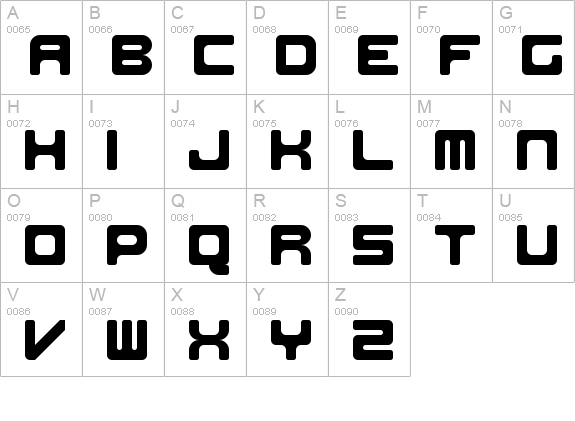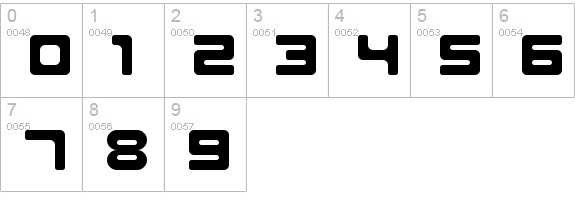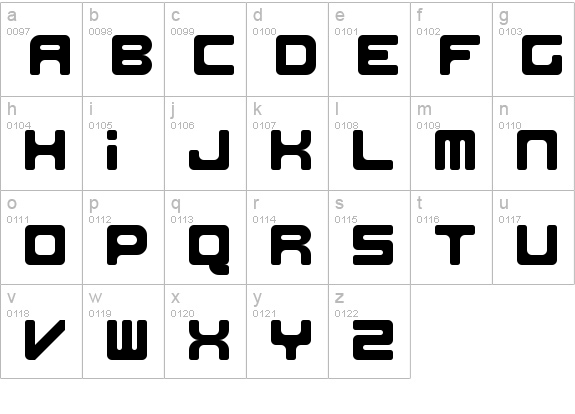
Work of Digitality Regular is the standard, neutral variant in the Work typeface family \xE2\x80\x94 well suited to general body text, paragraphs, and standard typographic work.
Work of Digitality Regular is a versatile and modern font that perfectly captures the essence of digital design. With its clean lines and geometric shapes, this font is perfect for a wide range of projects, from digital presentations to website designs. It exudes a sense of professionalism and sophistication, making it an excellent choice for corporate branding and advertising materials. One of the best things about Work of Digitality Regular is that it is available for free download at FontsMarket.com. This means that you can easily access this incredible font without any cost, making it a fantastic option for designers on a budget or those who simply appreciate high-quality free resources. Whether you're creating a sleek logo, designing a striking poster, or crafting an eye-catching social media graphic, Work of Digitality Regular has got you covered. Its legibility and versatile nature ensure that your message will always be conveyed with style and clarity. Don't miss out on the opportunity to enhance your design projects with this remarkable font. Visit FontsMarket.com today to download Work of Digitality Regular for free and elevate your creative endeavors to new heights.